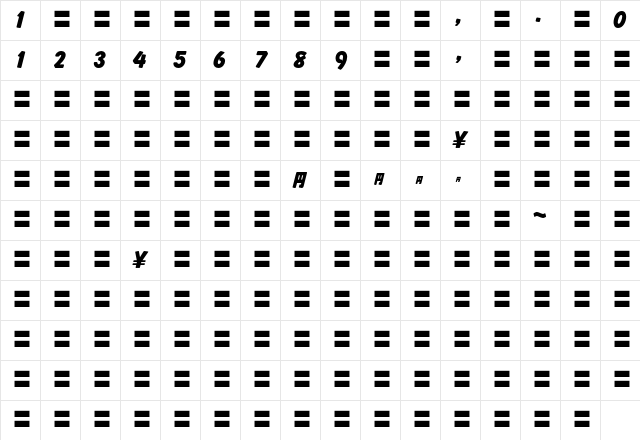
MOSuuji H B GDn
Style: GDn
Complete MOSuuji H B GDn glyph index. Displaying only characters natively supported by MOSuuji H B GDn font.
Design Context for MOSuuji H B
MOSuuji H B is a composed and adaptable typeface that performs quietly and consistently across a wide range of design contexts.